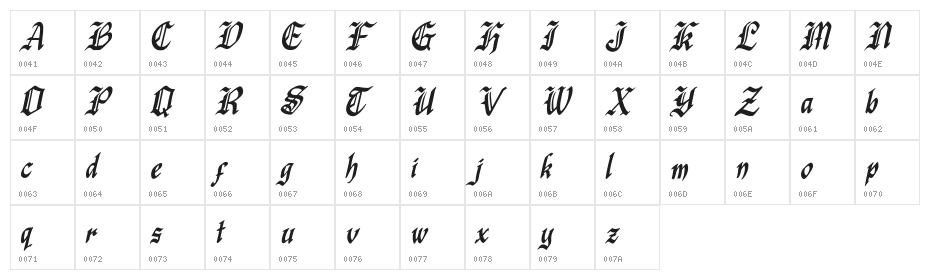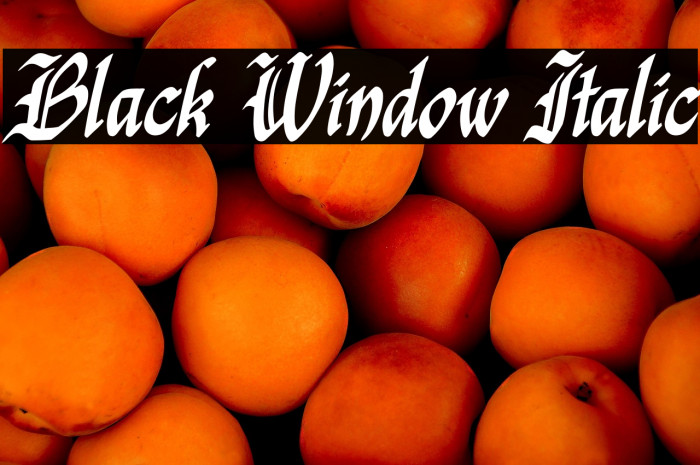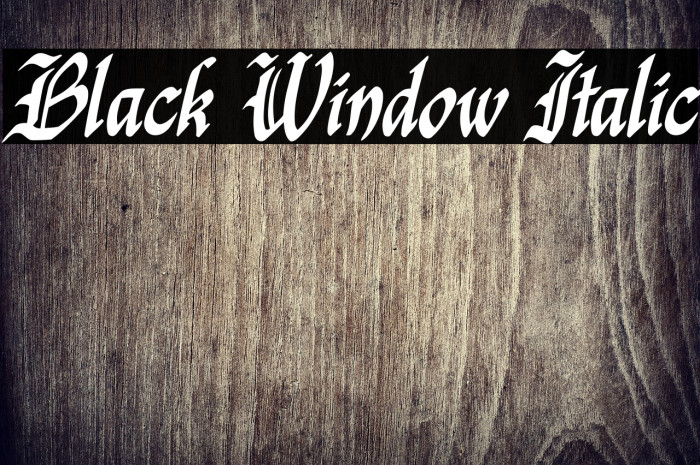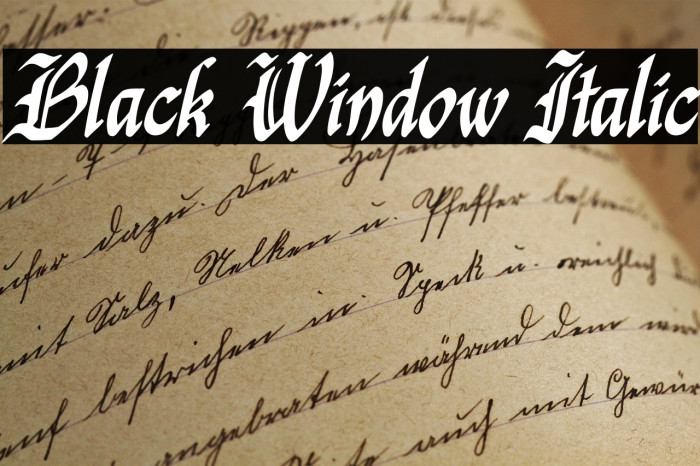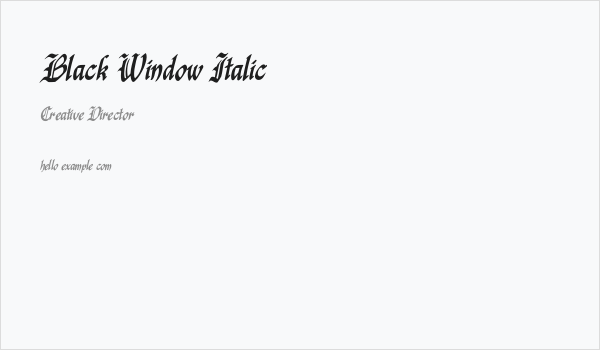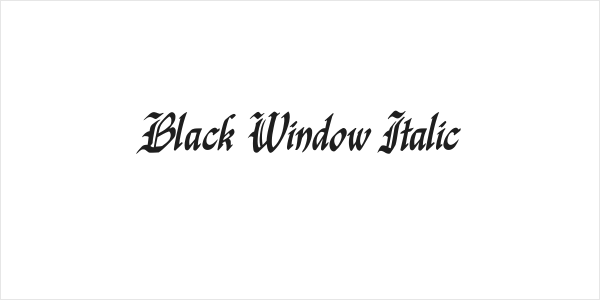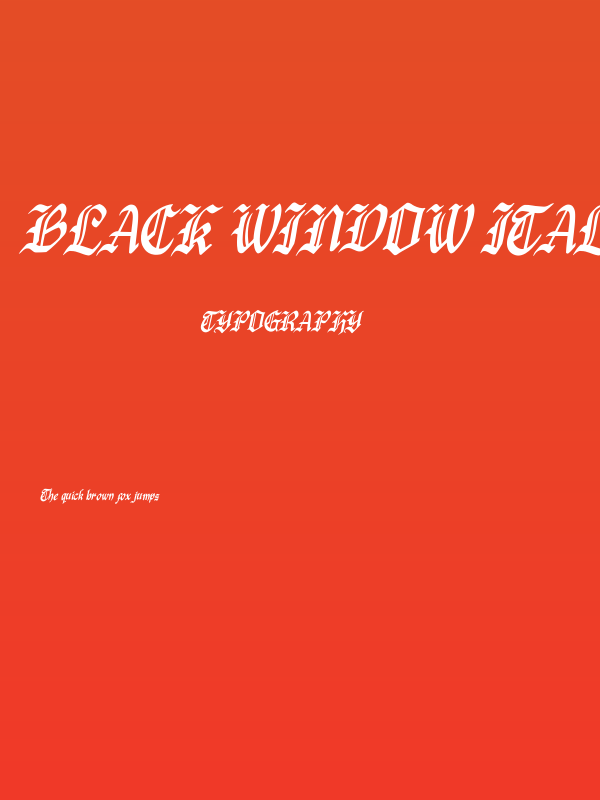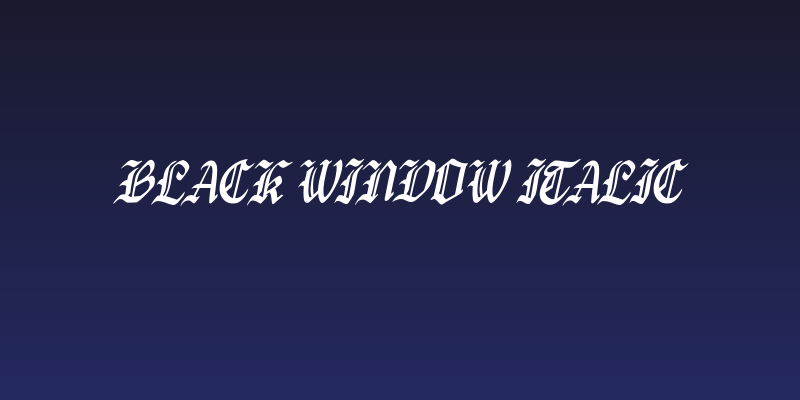
Black Window Italic Font
Black Window Italic Description
This font features a dramatic and ornate style, characterized by its sharp, angular lines and intricate detailing. The letters are italicized, giving them a dynamic and flowing appearance. The uppercase characters are bold and commanding, while the lowercase letters maintain a consistent style with slightly less emphasis. The overall design is reminiscent of traditional calligraphy, with a modern twist that adds a sense of elegance and sophistication. The font's unique style makes it suitable for projects that require a touch of drama and flair.